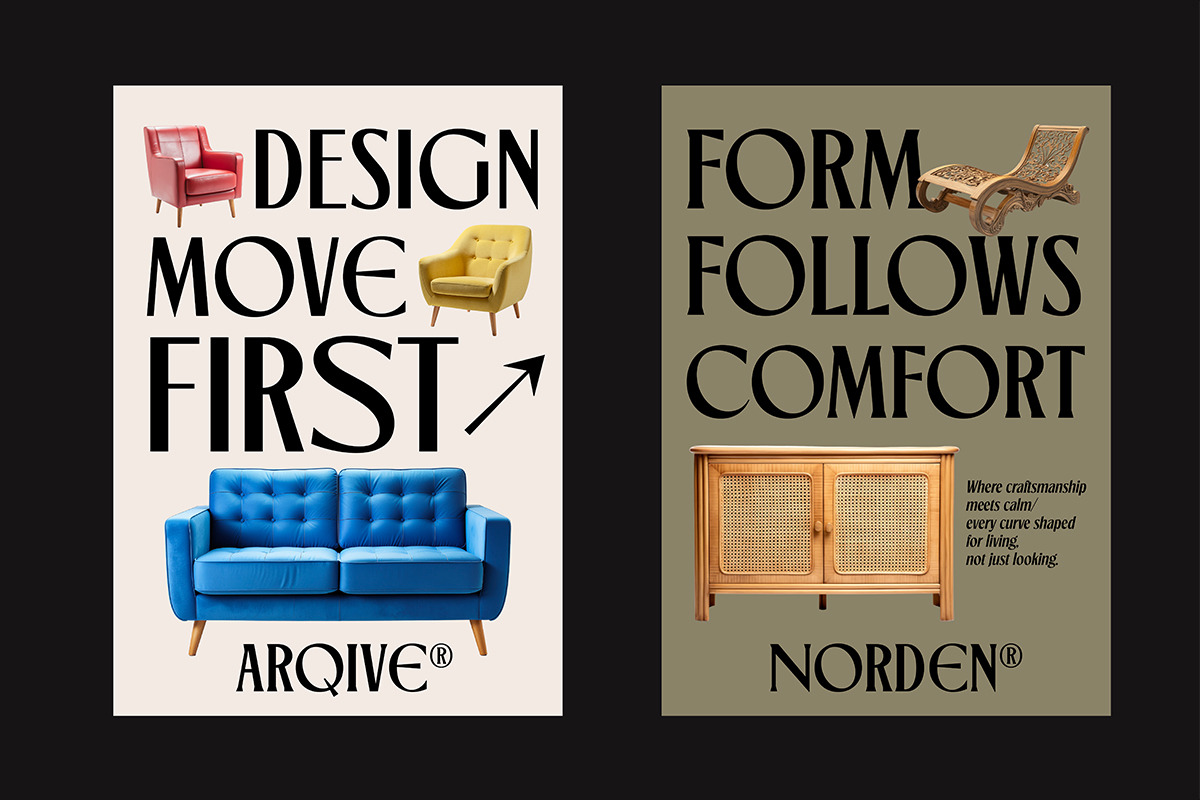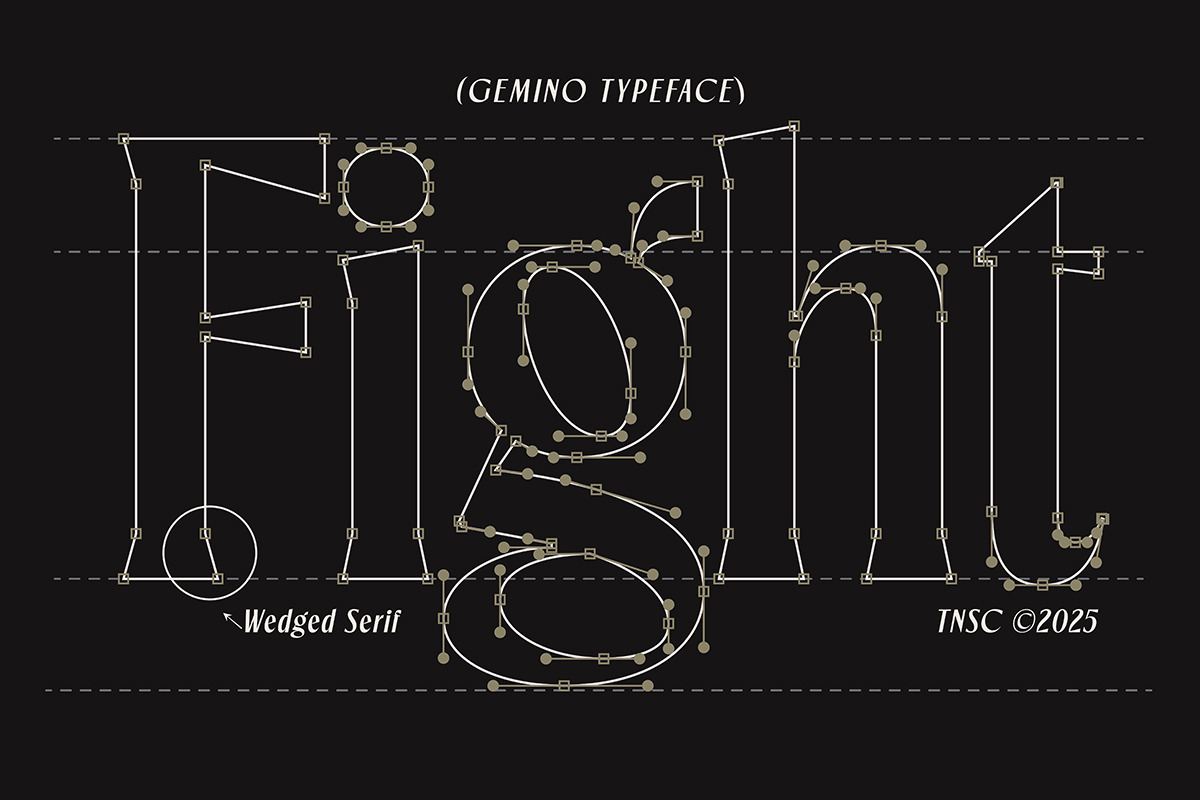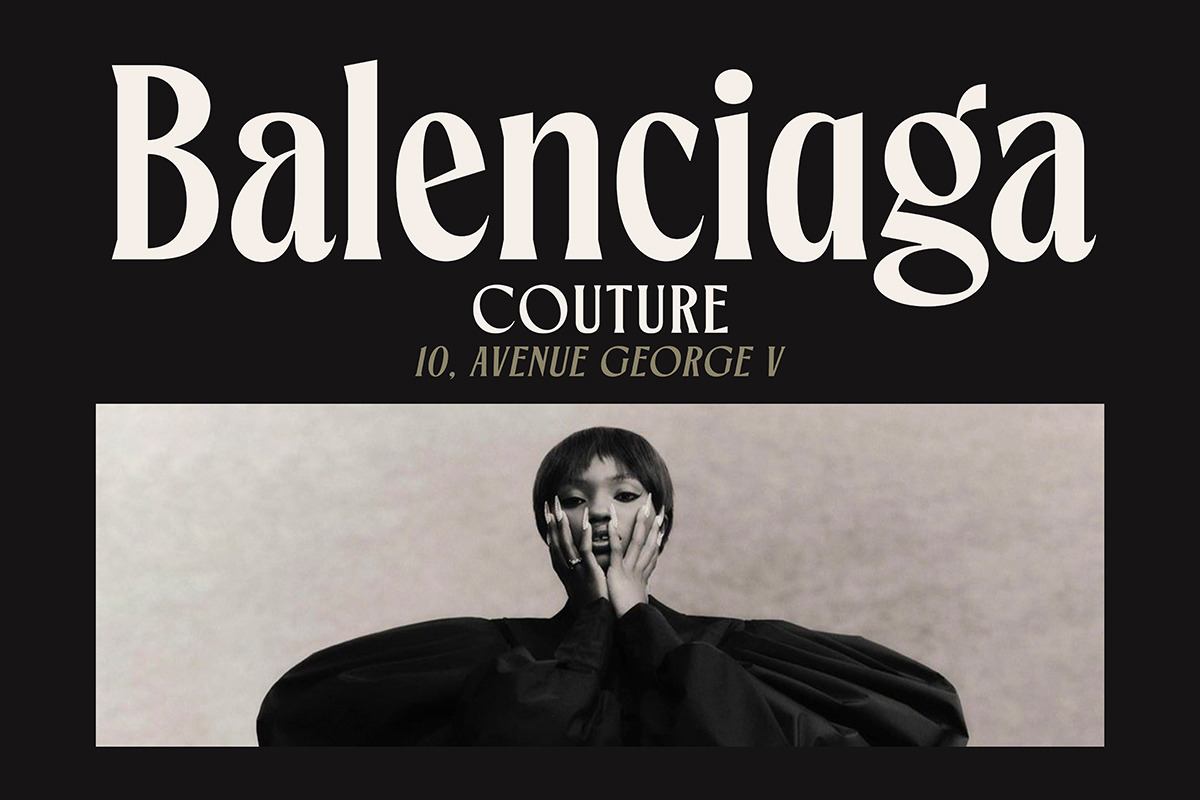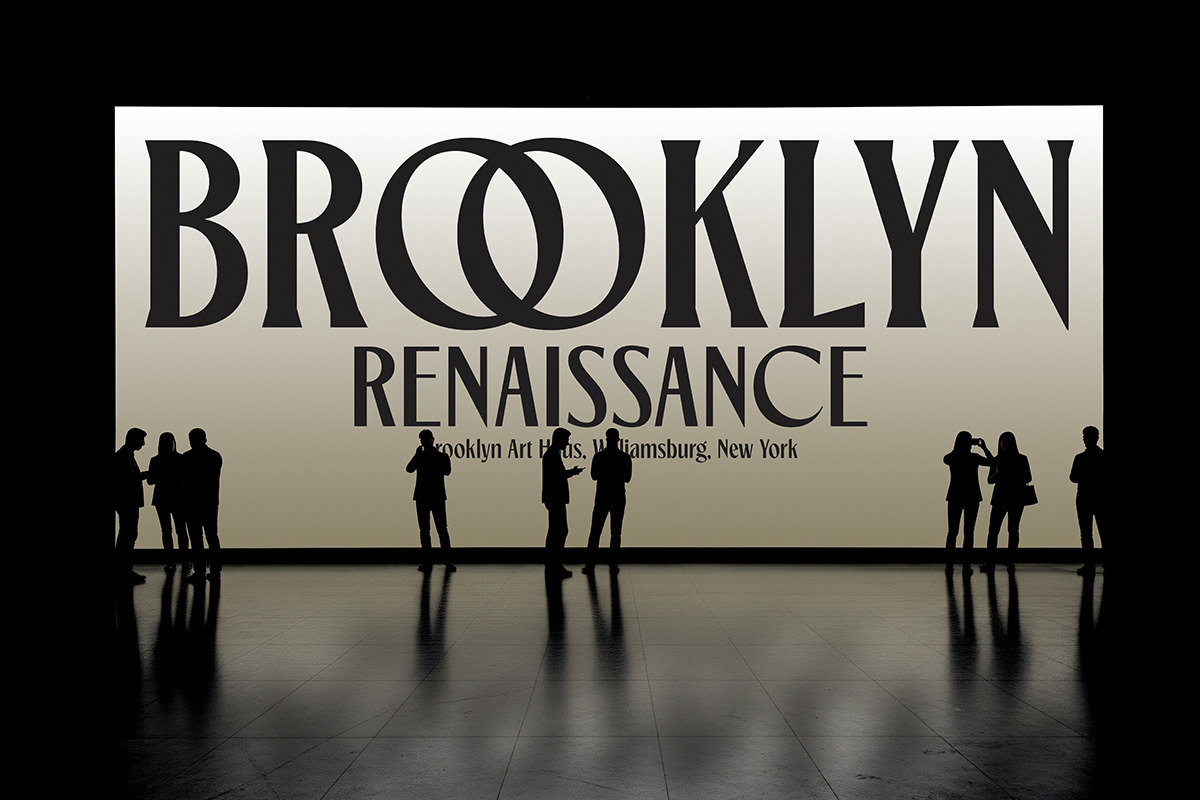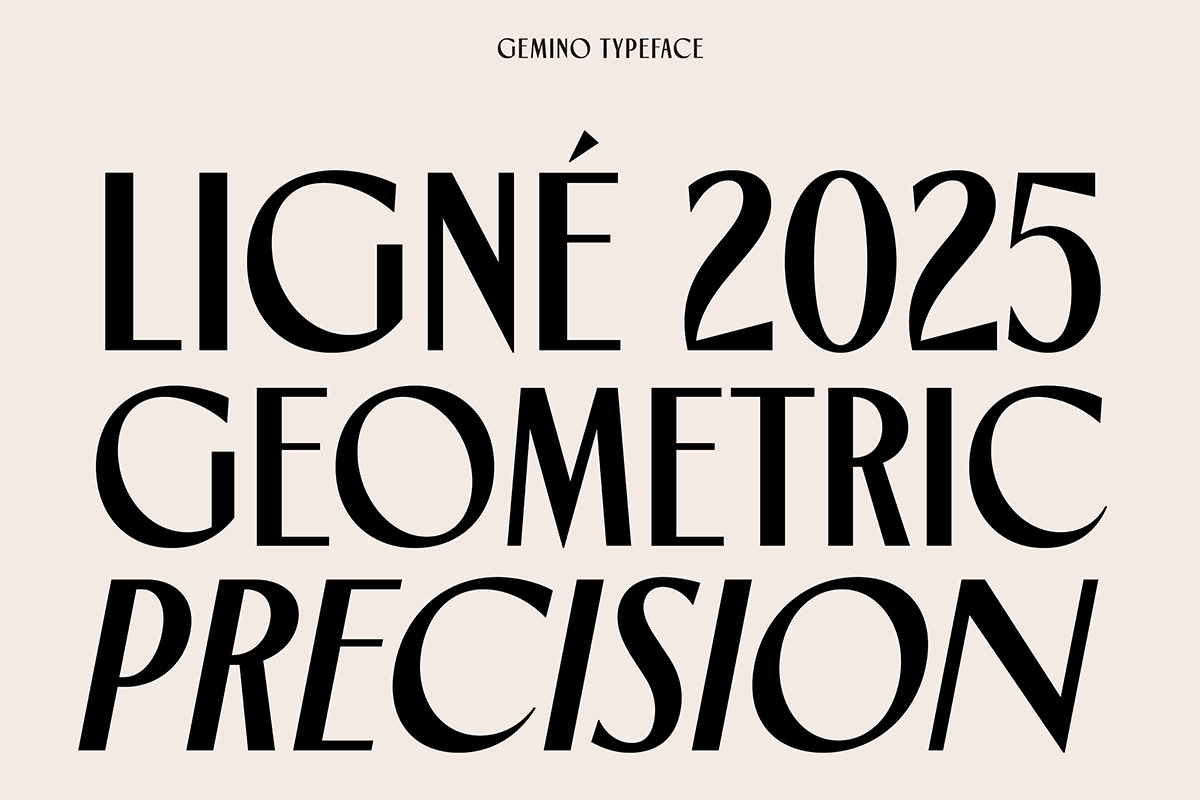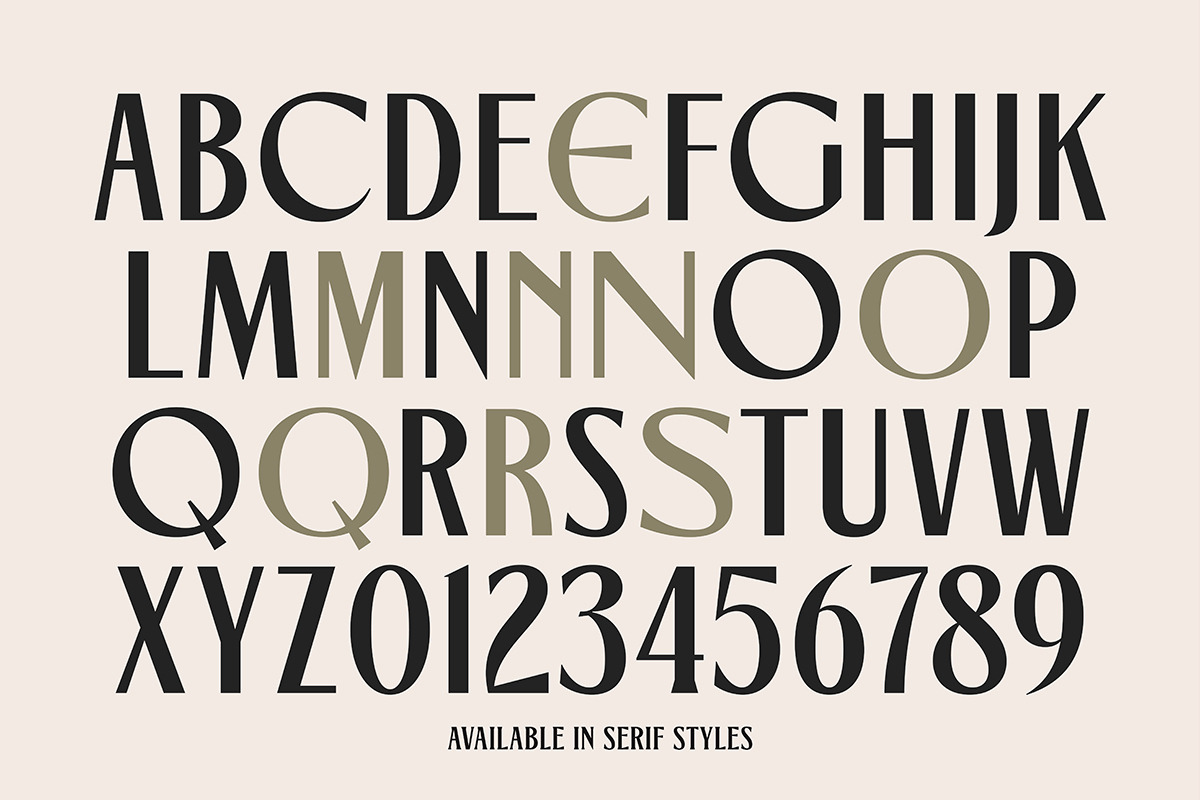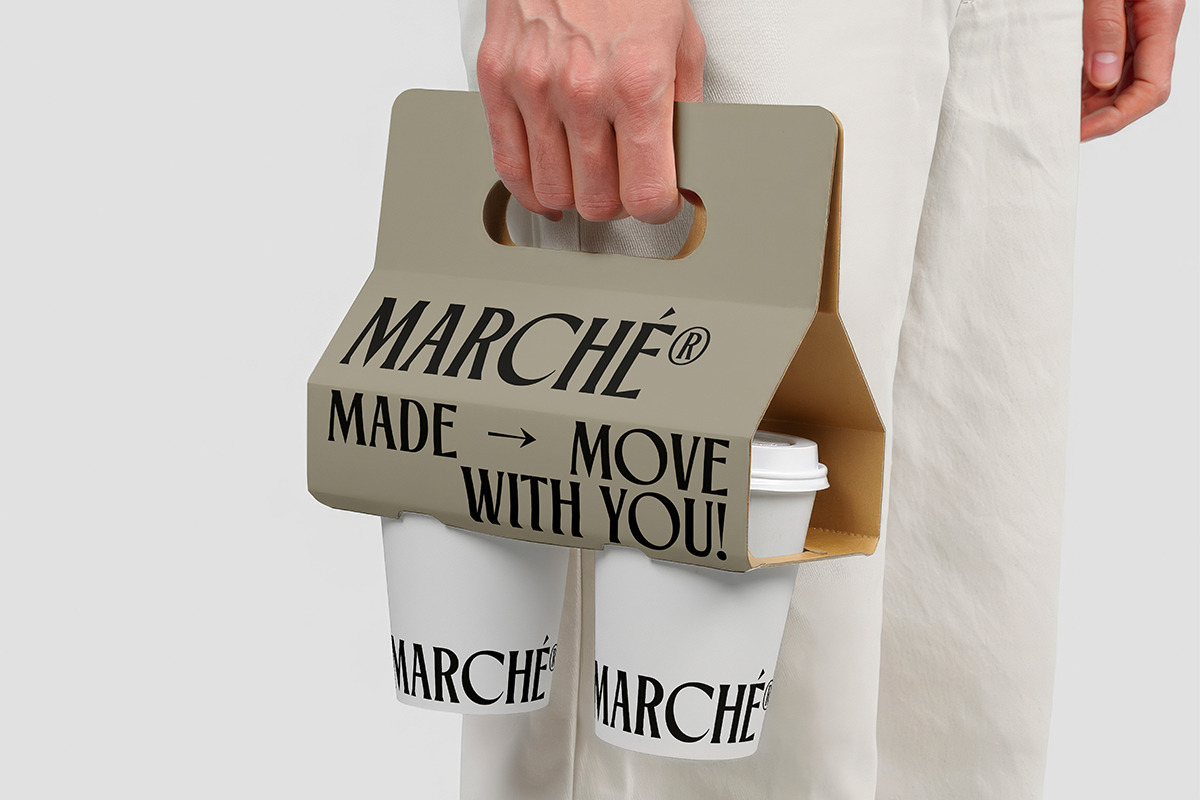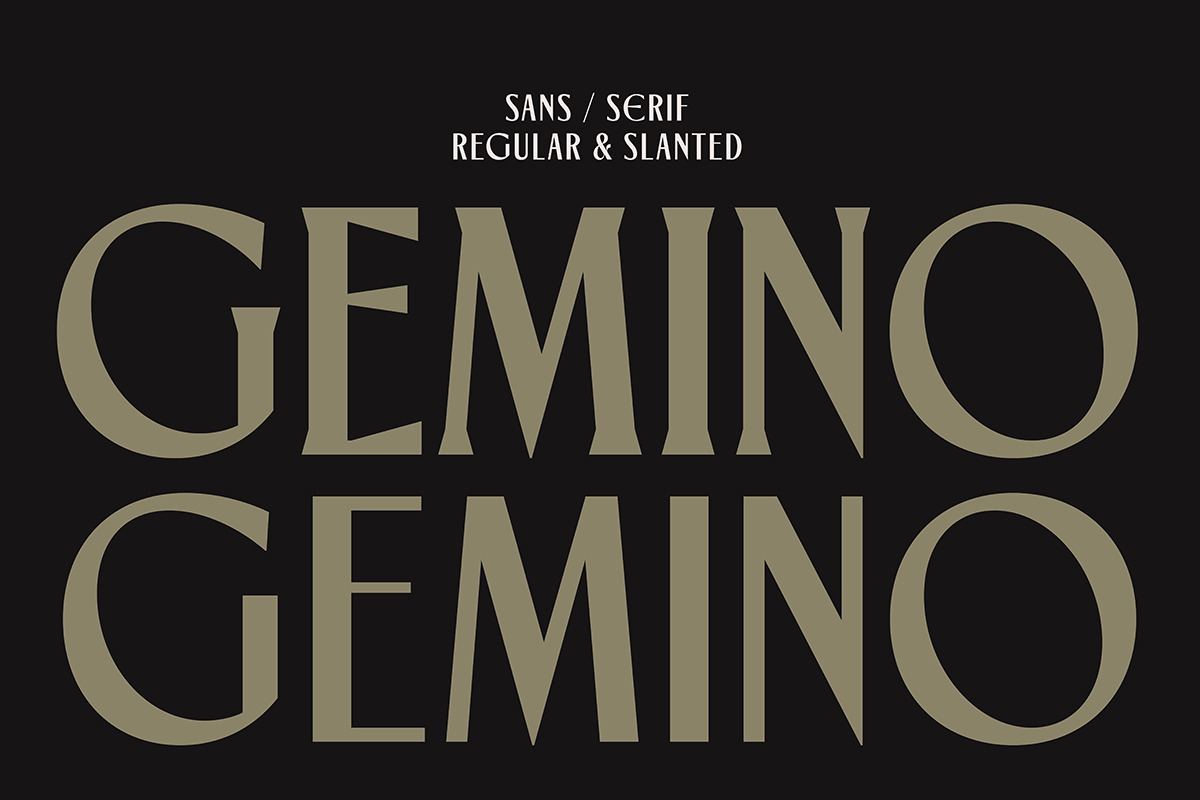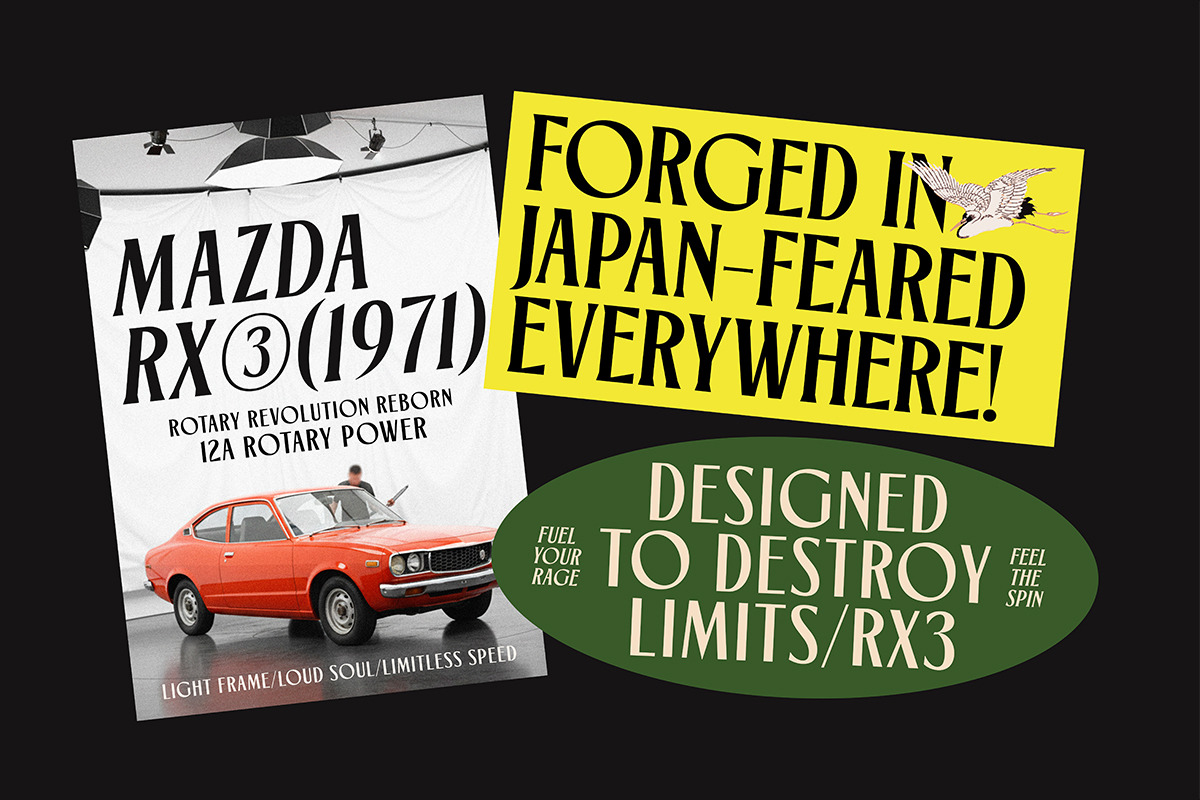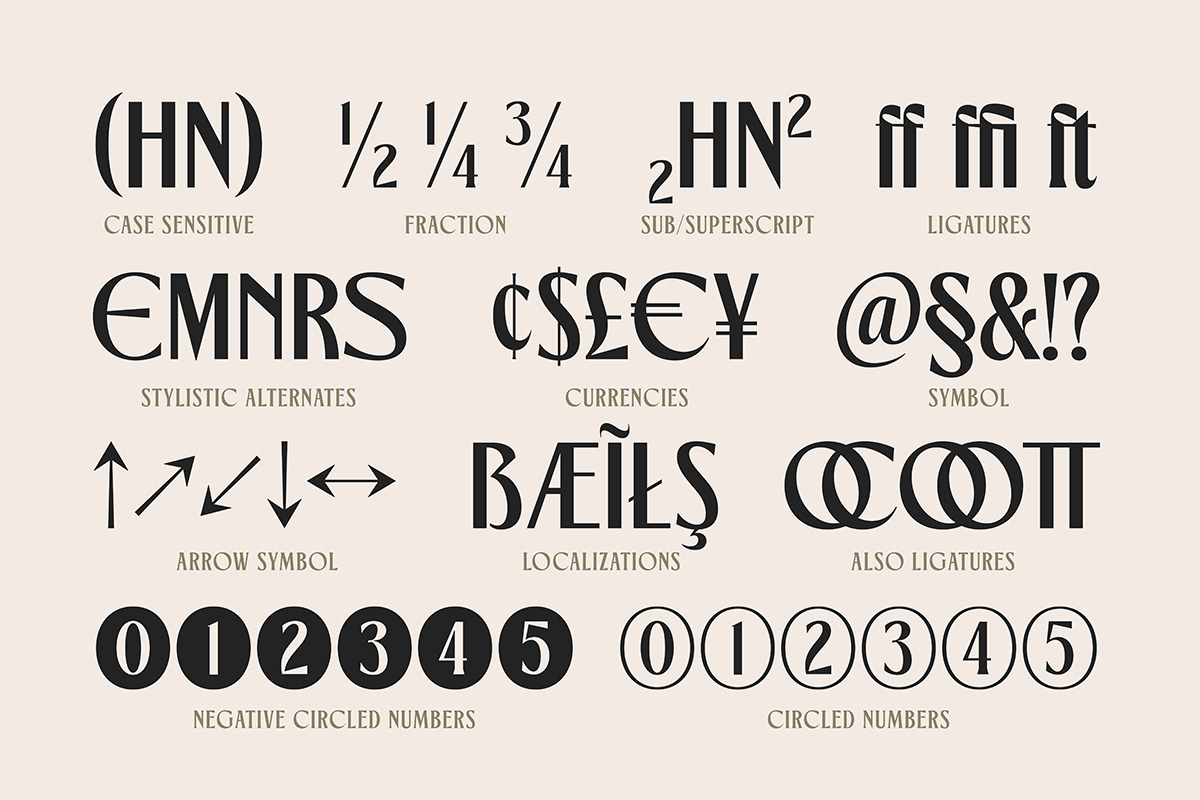
TNSC Gemino - Sans & Serif Typeface
TNSC GEMINO is a modern typeface crafted with a bold editorial spirit and a refined sense of elegance. With 478 glyphs, multilingual support, alternates, ligatures, and both Sans and Serif styles, from luxury fashion identities and magazine headlines to posters, packaging, and stylish social content, this typeface brings a polished and elevated look to any project. --- NOTE : Please Check the Help File first and for all the characters are also available, accessible in the Adobe Illustrator Glyphs Panel, or in Adobe Photoshop Character Open Type Panel. For upgrading license please contact me. Upgraded licenses are required for apps, books, television, commercial exhibition, film, gaming, print on demand products, etc. simply email me to : We hope you enjoy the font, please feel free to comment if you have any thoughts or feedback. Thanks for purchasing and have fun! Regards, The Native Saint Club